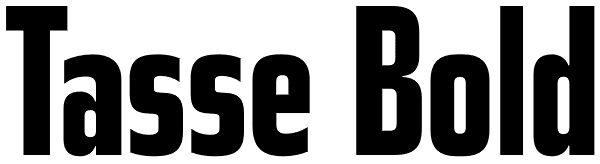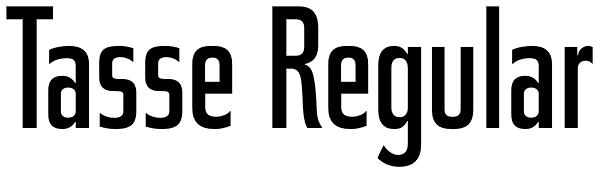
Tasse
Tasse can be seen as a straight-sided Futura, a design useful wherever Futura and its derivatives might apply. Developed from Topic, also known as Steile Futura, it is a letterform that Paul Renner himself explored in the mid nineteen-fifties. Guy...